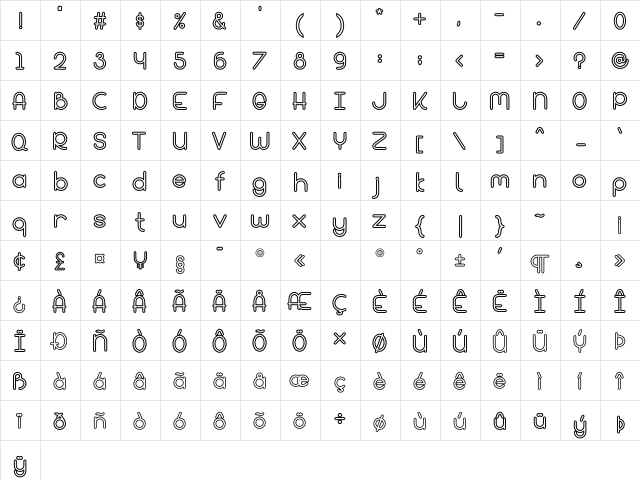
Bandar Outline
| Designer | Afkari Studio KanaType |
Design Context for Bandar Typeface
Bandar brings ornamental detail and strong personality to headlines and identities, where visual impact matters more than quiet functionality.
Font Pairing: Pair with a clean neutral sans-serif for body copy to let Bandar's character lead without overwhelming the composition.
Pro Tip: Treat Bandar as the centrepiece of your typographic hierarchy. One strong heading set in a decorative face can carry an entire layout.